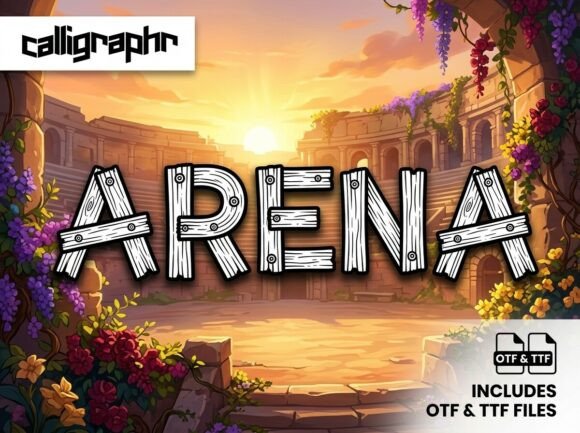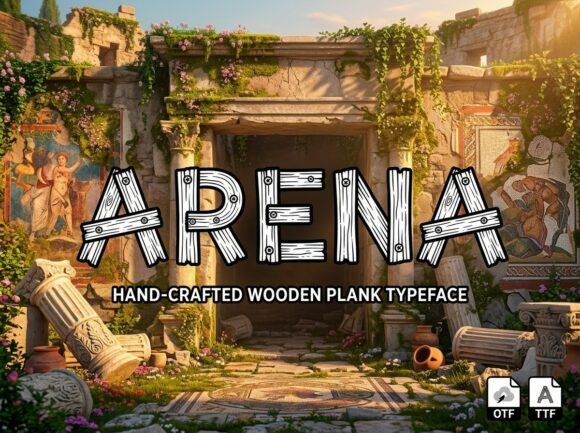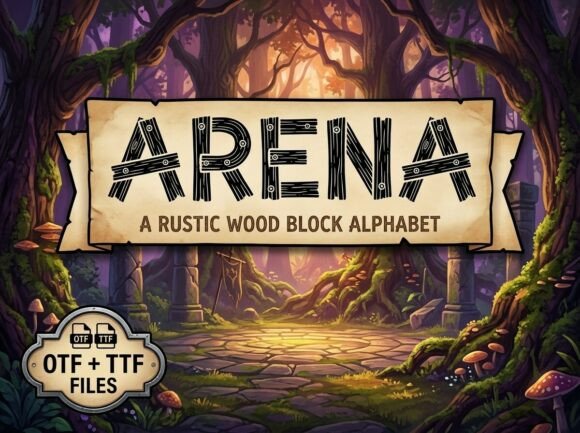
Unleash the Power of Arena Font: A Rugged Display Typeface for Bold Designs
Enter the theater of design with Arena, a rugged display typeface that captures a “rustic-and-renowned” soul. This font features bold, architectural letterforms uniquely characterized by rhythmic, hand-drawn “timber plank” textures—complete with grain details and iron rivets—that bridge the gap between ancient gladiator stadiums and modern adventure branding.
The Inspiration Behind Arena Font
Arena Font is inspired by the grandeur and strength of ancient structures, evoking the spirit of gladiator stadiums and coliseums. The font’s creator aimed to capture the essence of a bygone era, where ruggedness and resilience were the hallmarks of great design. The result is a typeface that exudes a sense of history, while still feeling modern and fresh.
Key Features of Arena Font
• Bold and Architectural Letterforms: Arena Font features bold, chunky letterforms that are perfect for creating eye-catching designs. The font’s architectural style gives it a sturdy, solid feel that’s perfect for headlines and titles.
• Hand-Drawn Timber Plank Textures: The font’s unique texture, inspired by timber planks, adds a touch of rustic charm to any design. The hand-drawn texture gives the font a personal, human feel that’s hard to replicate with digital fonts.
• Grain Details and Iron Rivets: The font’s attention to detail is impressive, with grain details and iron rivets that add depth and visual interest to the letterforms.
• Heavy Structural Weight: Arena Font has a heavy structural weight that gives it a solid, imposing presence. This makes it perfect for designs that need to make a bold statement.
• Handcrafted Personality: The font’s handcrafted personality shines through in its unique texture and attention to detail. This makes it perfect for designers and crafters who value individuality and character in their work.
Use Cases for Arena Font
Arena Font is a versatile typeface that can be used in a variety of design projects. Here are some use cases where the font truly shines:
• Independent Tabletop Gaming Identities: The font’s bold, rugged style makes it perfect for tabletop gaming identities, such as logos, character names, and game titles.
• Boutique Woodworking Shop Logos: The font’s timber plank texture and rustic charm make it a natural fit for boutique woodworking shop logos and branding.
• Historical Festival Promotions: The font’s historical inspiration and bold style make it perfect for historical festival promotions, such as Renaissance faires and medieval-themed events.
• High-Impact Social Media Headers: The font’s heavy structural weight and handcrafted personality make it perfect for high-impact social media headers that need to grab attention.
Tips for Using Arena Font Effectively
To get the most out of Arena Font, here are some tips for using it effectively:
• Use it for Headlines and Titles: Arena Font is perfect for headlines and titles, where its bold style and handcrafted personality can shine.
• Pair it with Contrasting Fonts: Pair Arena Font with contrasting fonts to create visual interest and hierarchy in your designs.
• Experiment with Colors and Textures: Don’t be afraid to experiment with different colors and textures to bring out the unique character of the font.
Arena Font is a rugged display typeface that captures the essence of ancient structures and modern adventure branding. With its bold, architectural letterforms, hand-drawn timber plank textures, and heavy structural weight, it’s perfect for designers and crafters who value individuality and character in their work. Whether you’re creating independent tabletop gaming identities, boutique woodworking shop logos, or historical festival promotions, Arena Font is the premier choice for making a bold statement.